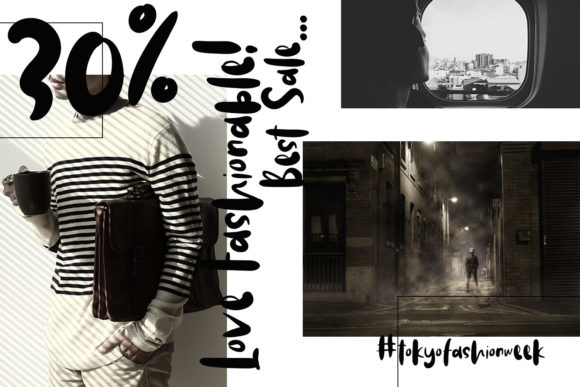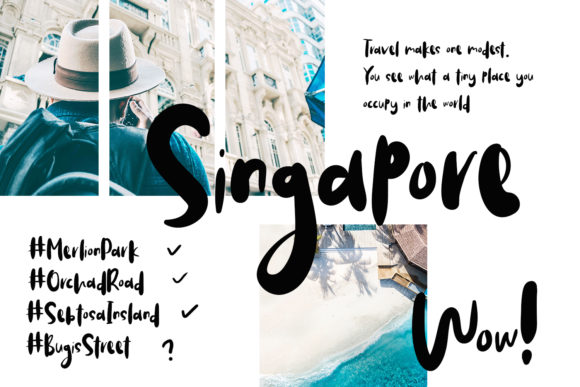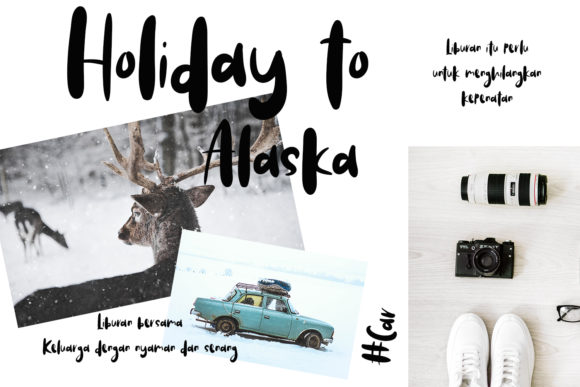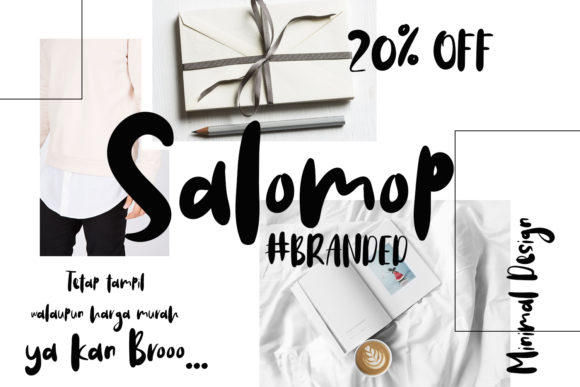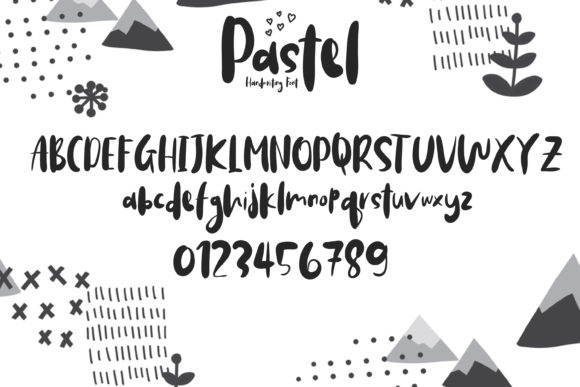
Pastel Font
About Pastel Font
The Pastel is a simple, yet cute typeface, perfect for those of you who want to write a note with cool ink strokes.
It includes unique, funny, and cute characters which are perfect for logos, name cards, magazine layouts, invitations, headers, or even large-scale artwork.